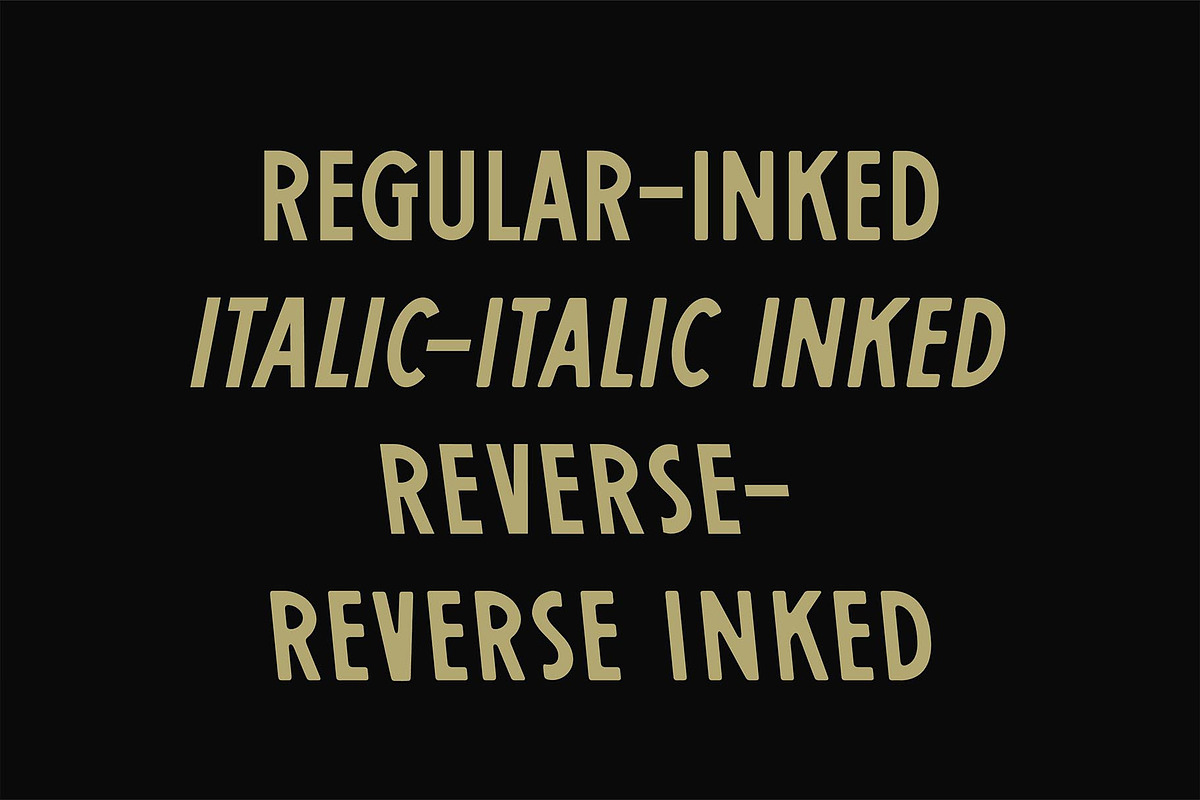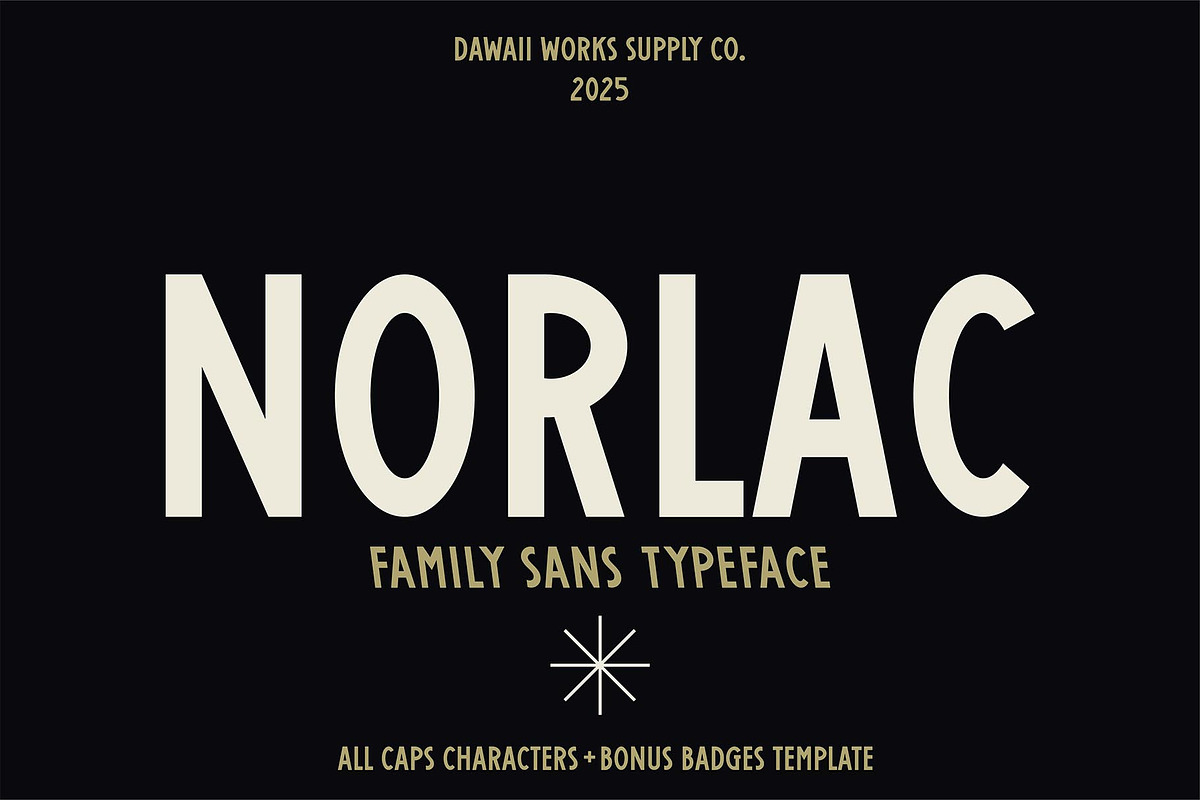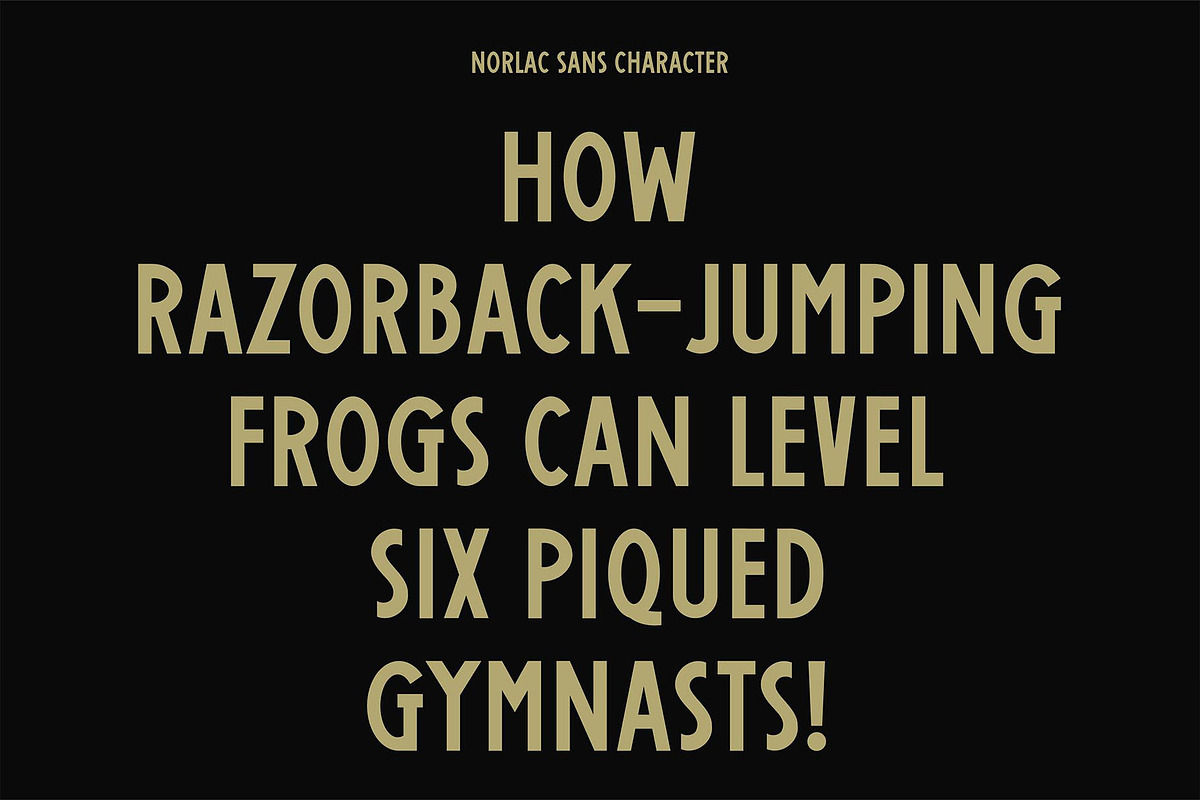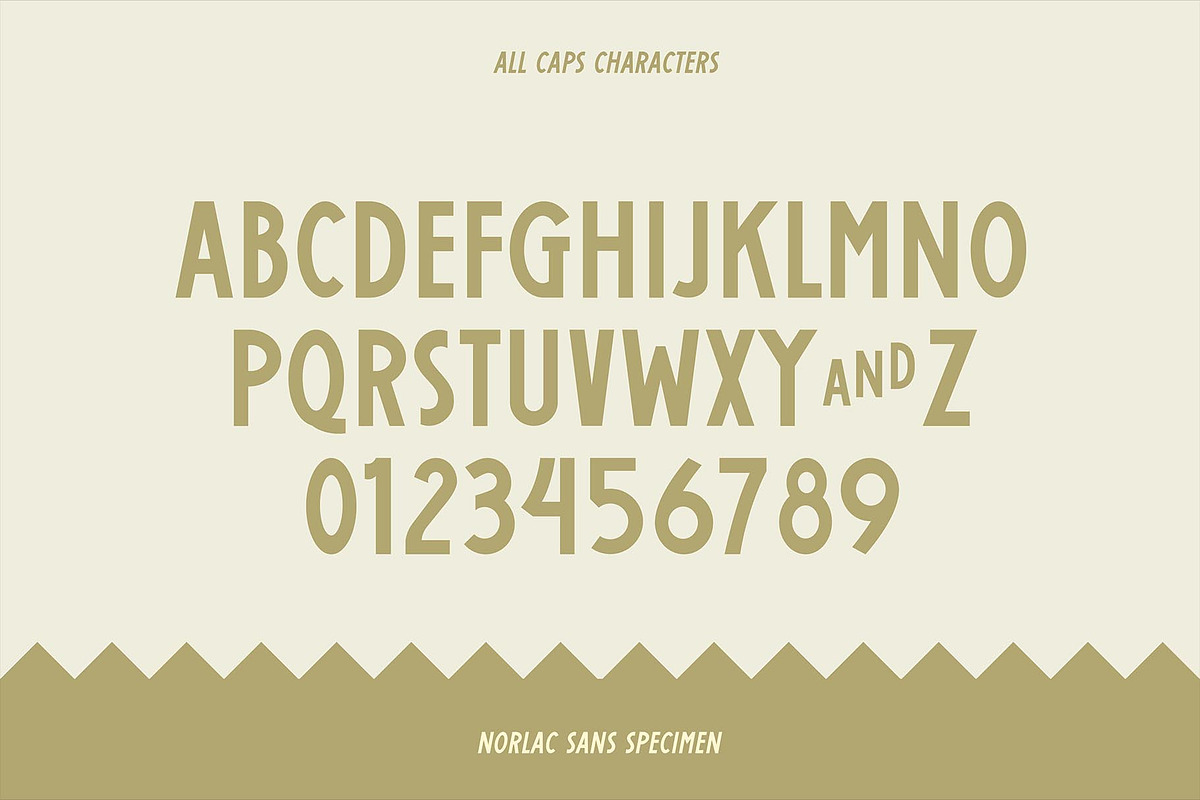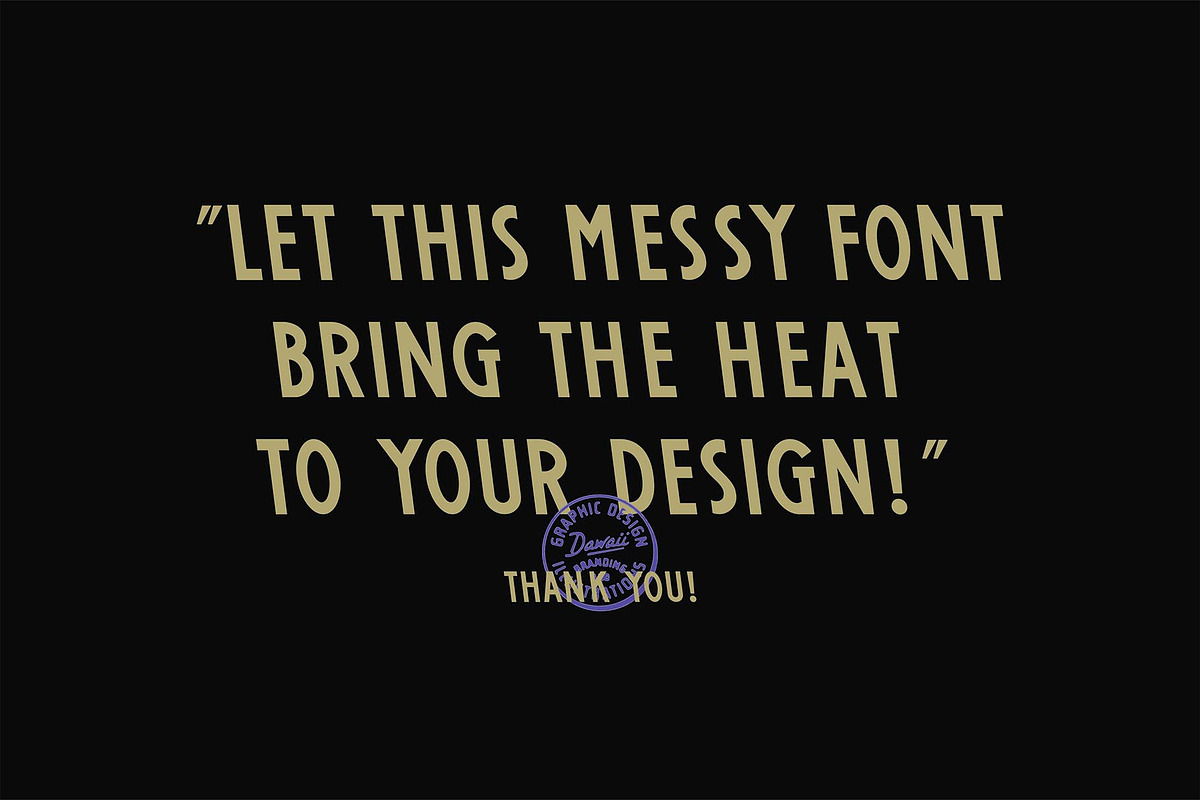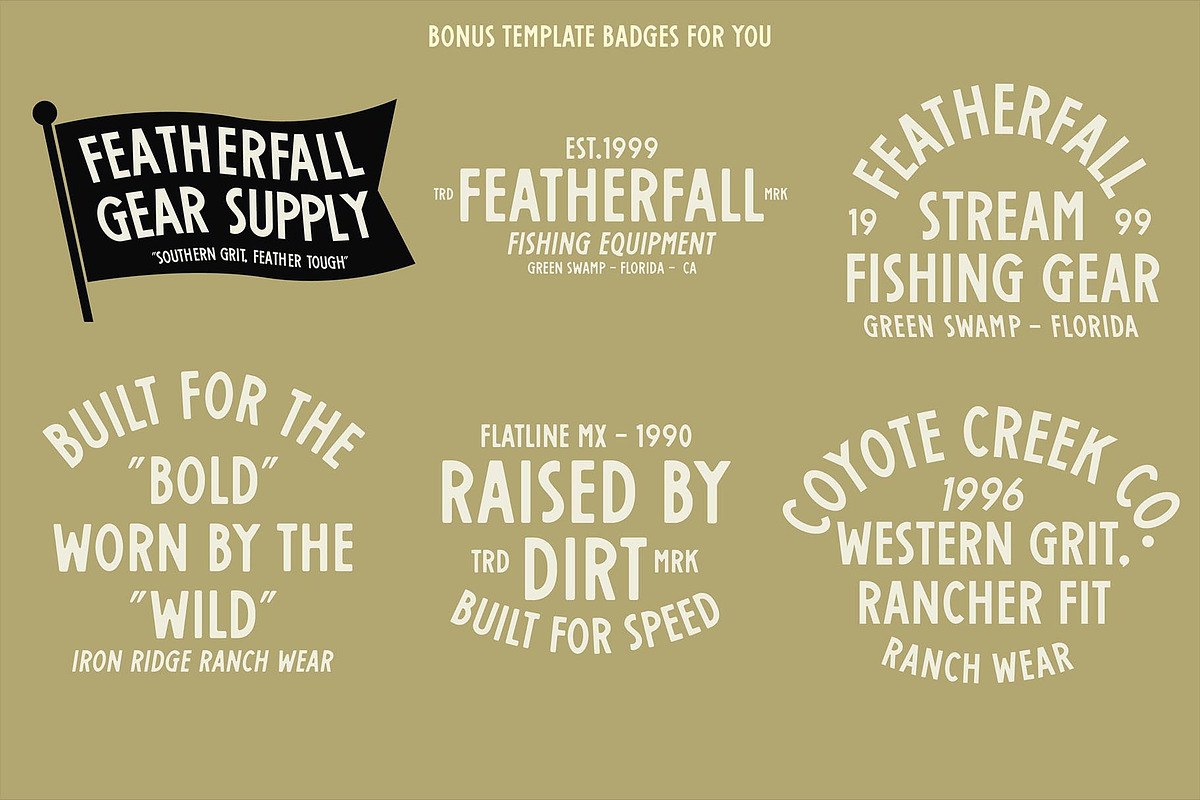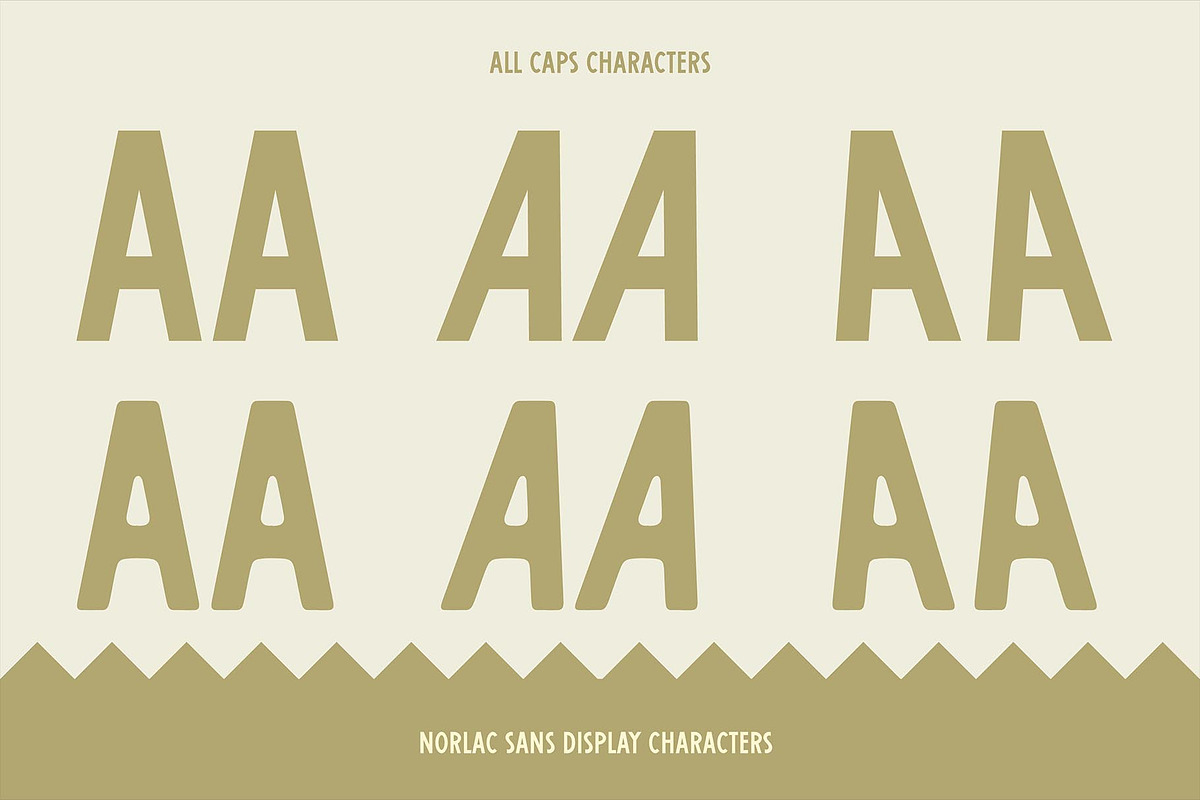
Norlac Sans
Norlac Sans – Vintage Sans Serif (6 Styles)
Norlac Sans is a clean and inked sans serif inspired by vintage shop signs and classic storefront lettering. It comes in 6 styles, great for logos, packaging, posters, and more.
6 styles (Regular & Inked Version)
A timeless font with a vintage feel—easy to use, strong in character.